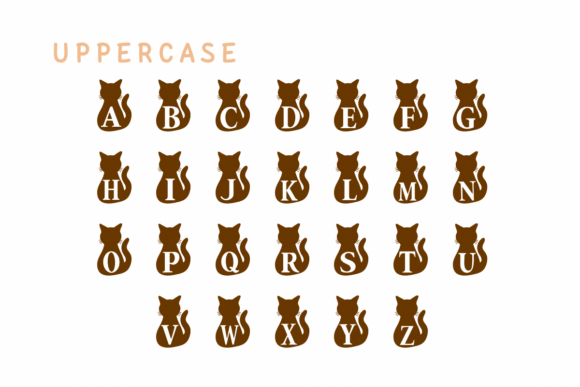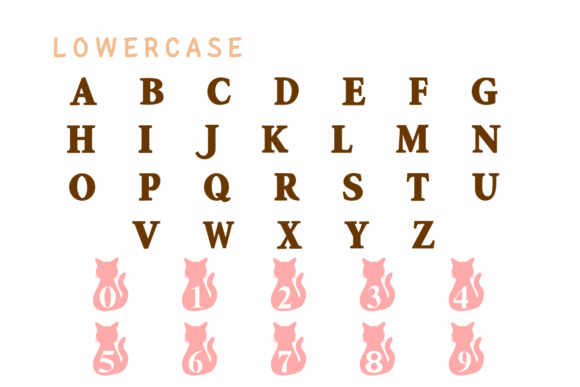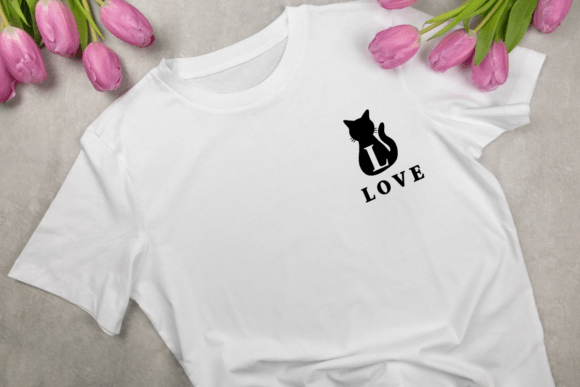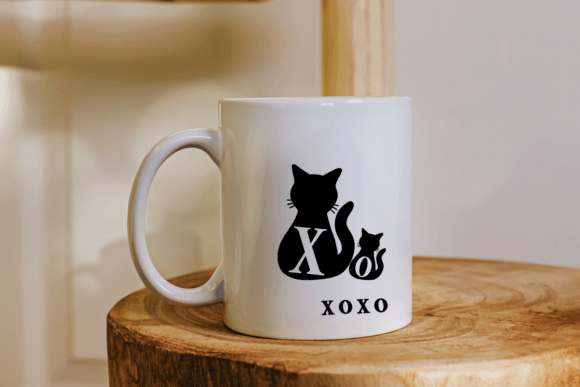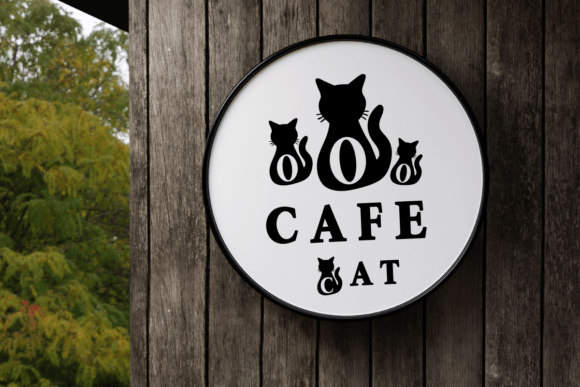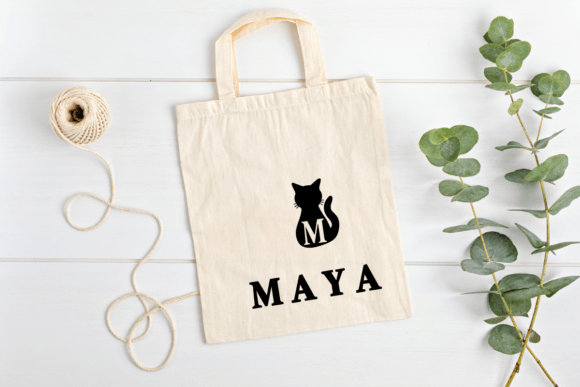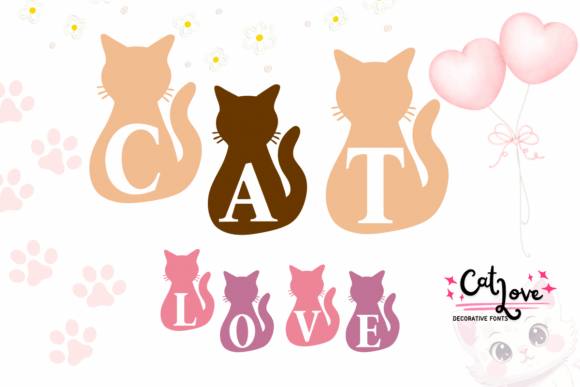
The Purrfect Font: A Deep Dive into Cat Love Font
I’ll never forget the time I was working on a project for a client’s cat-themed merchandise. I had all the designs ready to go, but something was missing – the right font. That’s when I stumbled upon Cat Love Font, a decorative font that features cute little cats. It was love at first sight! 💕 In this article, I’ll share my experience with Cat Love Font, its features, and how to make the most of it in your designs.
• ✨ The font’s playful and whimsical design, perfect for cat-themed projects
• ✅ Easy to read and use in various design applications
• 🎉 Wide range of use cases, from notes and diaries to greeting cards and social media posts
While Cat Love Font is an amazing addition to any design project, there are a few things to keep in mind:
• 🤔 Limited character set compared to other fonts, which might limit its use in certain projects
• ⚠️ May not be suitable for body text or long-form content due to its decorative nature
The Story Behind Cat Love Font
Cat Love Font was created by a team of designers who are passionate about cats and good design. The font is inspired by the playful and affectionate nature of cats, making it perfect for cat lovers and designers alike. Whether you’re creating a cat-themed project or just want to add some whimsy to your design, Cat Love Font is sure to delight.
Q: What is Cat Love Font?
A: Cat Love Font is a decorative font featuring cute little cats, perfect for adding a touch of whimsy to your designs.
Q: What can I use Cat Love Font for?
A: You can use Cat Love Font for a wide range of projects, including notes, diaries, greeting cards, banners, social media posts, and more!